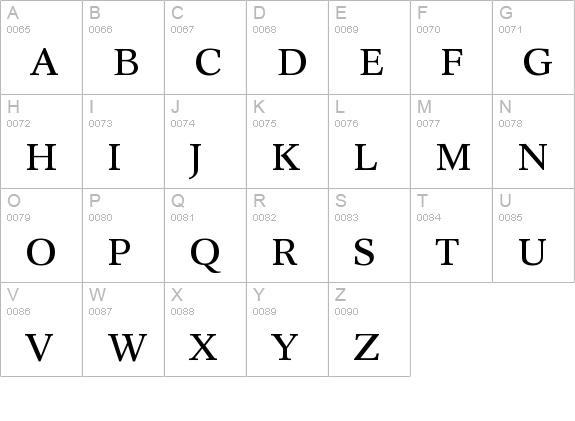
Concept-Regular is the standard, neutral variant in the Concept typeface family \xE2\x80\x94 well suited to general body text, paragraphs, and standard typographic work.
The Concept-Regular font is a versatile and modern typeface that exudes sophistication and simplicity. With its clean lines and sleek design, this font is perfect for a wide range of design projects, from branding to editorial design. The Concept-Regular font strikes the perfect balance between professionalism and creativity, making it an ideal choice for any project. Best of all, this font is available for free download at FontsMarket.com, allowing you to incorporate this stylish typeface into your designs without breaking the bank. Unlock the potential of your projects with the Concept-Regular font and elevate your design game to new heights.